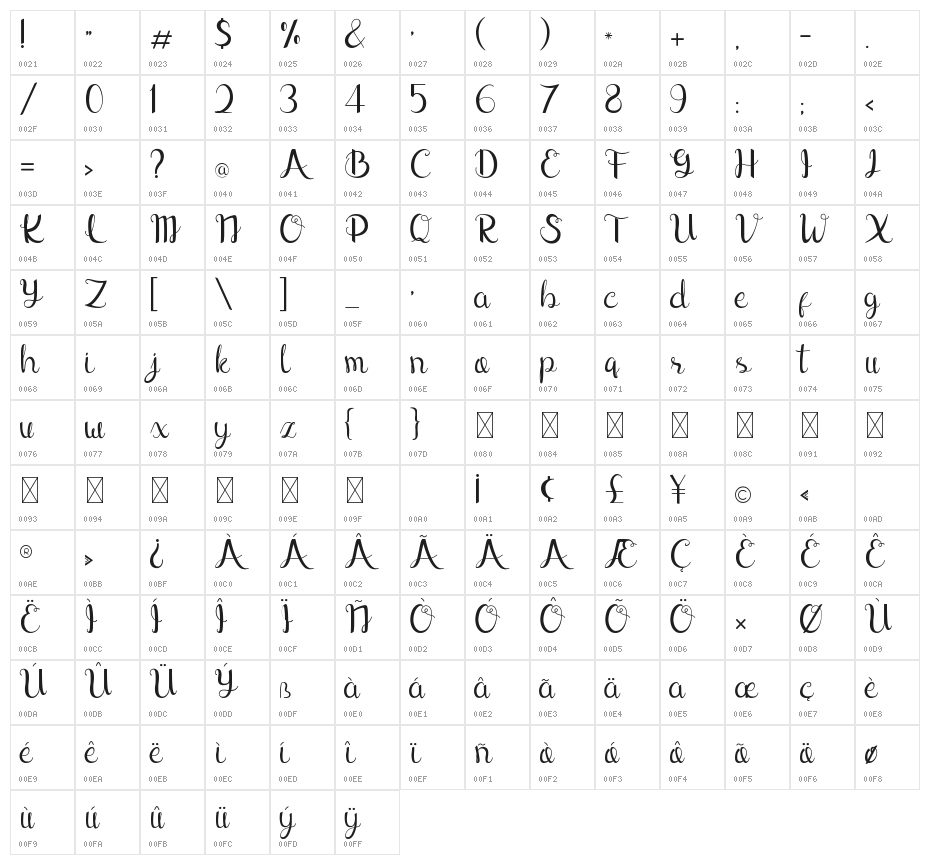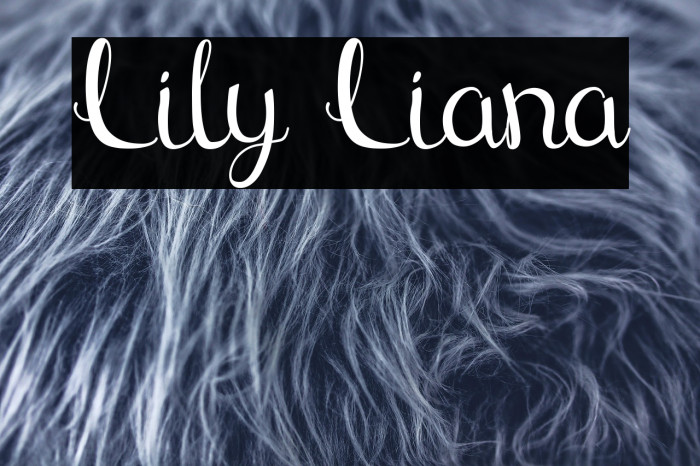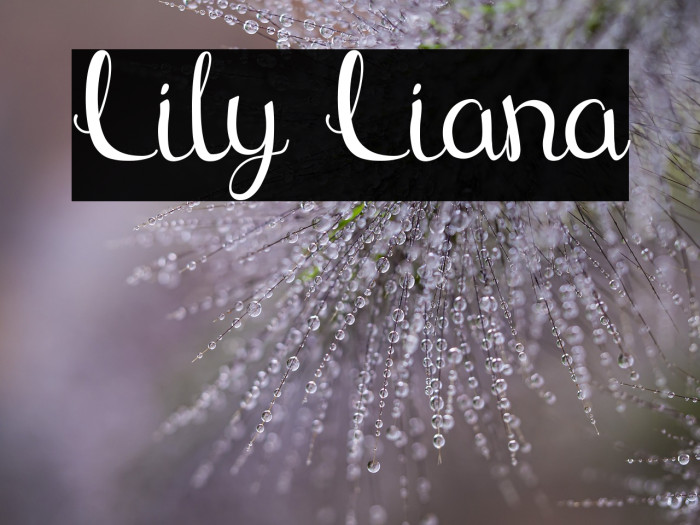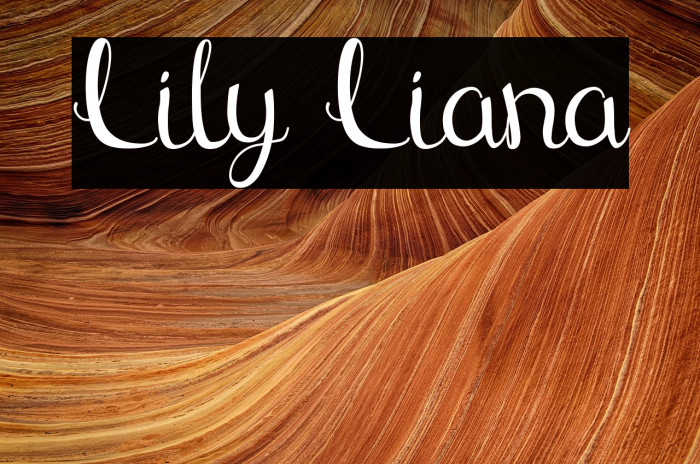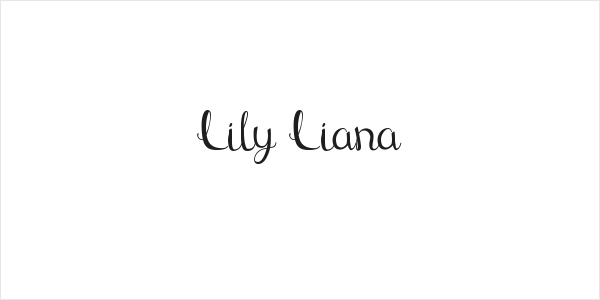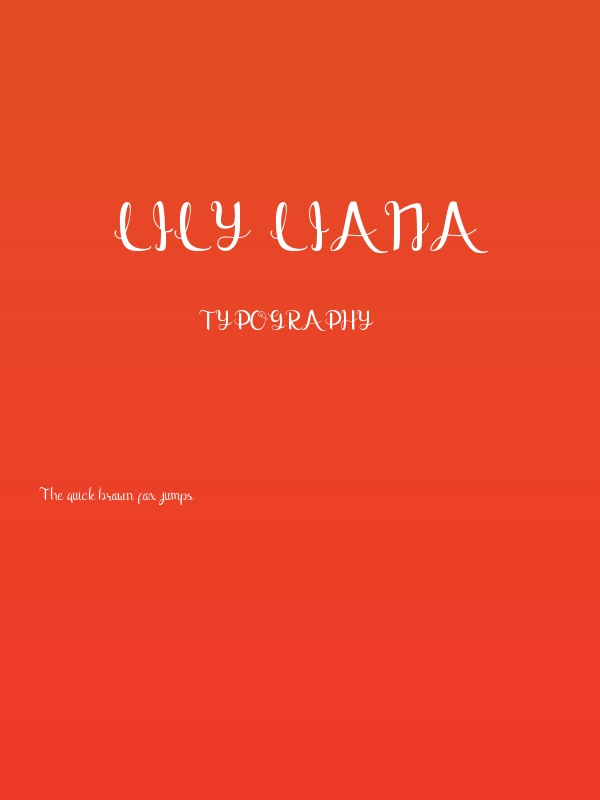
Lily Liana Font
Lily Liana Description
This font features a whimsical and elegant script style with a playful touch. The uppercase letters are characterized by their flowing, cursive forms, often incorporating loops and swirls that add a decorative flair. The lowercase letters maintain a consistent style, with smooth curves and a slightly informal feel. The numerals are bold and clear, ensuring readability while maintaining the font's overall artistic style. Special characters are designed to complement the letters, with a similar attention to detail and decorative elements. This font is perfect for projects that require a touch of elegance and creativity.
| Use Case | Logos, Invitations, Decorative Text |
| Proposed Projects | Ideal for wedding invitations, greeting cards, branding, and decorative posters. |